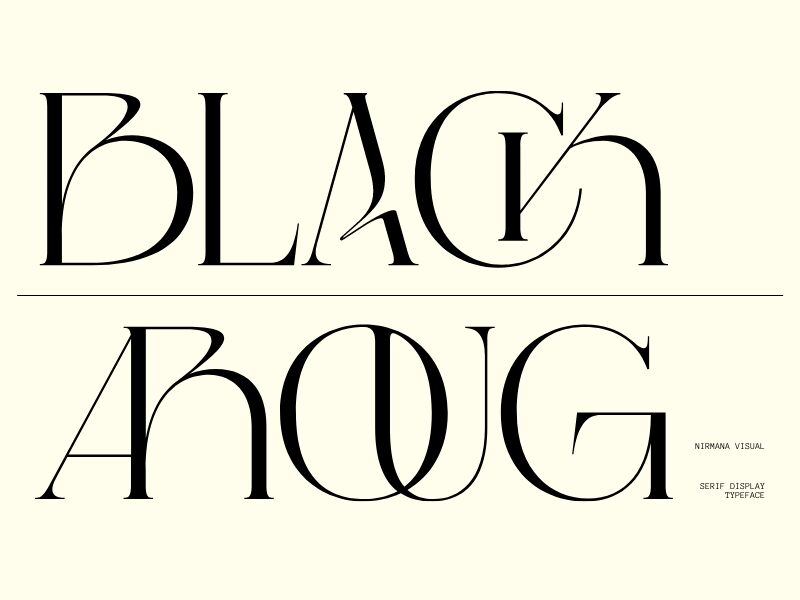
Black Aroug font by Nirmana Visual exudes elegance and sophistication with its light serif design. This font's refined lines and delicate curves bring a touch of class to any project, making it ideal for editorial designs, branding, and high-end packaging. Its thin strokes add a modern aesthetic while maintaining readability, perfectly suited for luxury brands or upscale event invitations.
Available as a free font download, Black Aroug offers versatility for designers seeking to make a distinguished impression. Embrace the timeless appeal of this serif font in your next project and elevate the visual narrative with its graceful style. Whether in print or digital media, Black Aroug commands attention through its understated yet captivating charm.